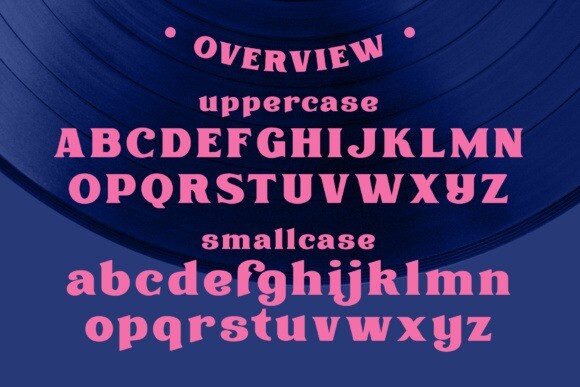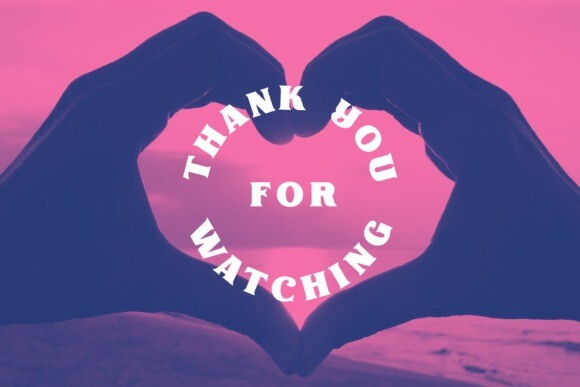
Jorick Font
Designer: NREY
Jorick Font is a serif font inspired by retro fonts. It perfectly represents modern and vintage aesthetics. Jorick is perfect for elegant wedding invites, beauty and fashion package designs, magazines typography, packaging, branding and other creative projects.